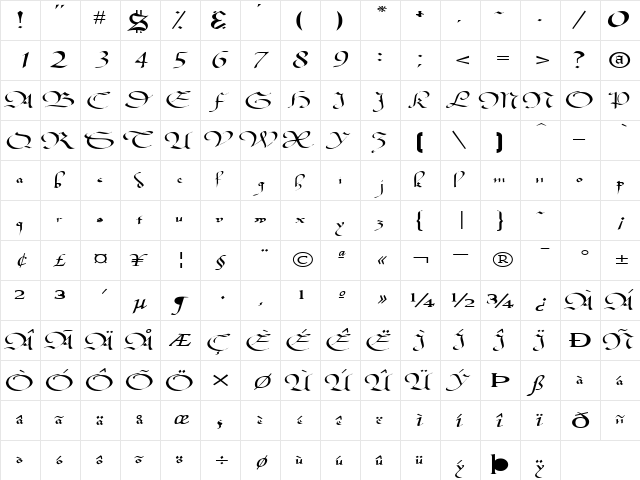
ClassicBookerFont77 Regular
Design Context for ClassicBookerFont77 Typeface
ClassicBookerFont77 has the warm character of retro typography — evoking diners, record sleeves, and the golden age of print advertising.
Font Pairing: Combine ClassicBookerFont77 with a simple slab or neutral sans — period-accurate companions reinforce the vintage feel without competing for attention.
Pro Tip: Lean into ClassicBookerFont77's period character by pairing it with aged paper textures, muted colour palettes, and vintage illustration styles.